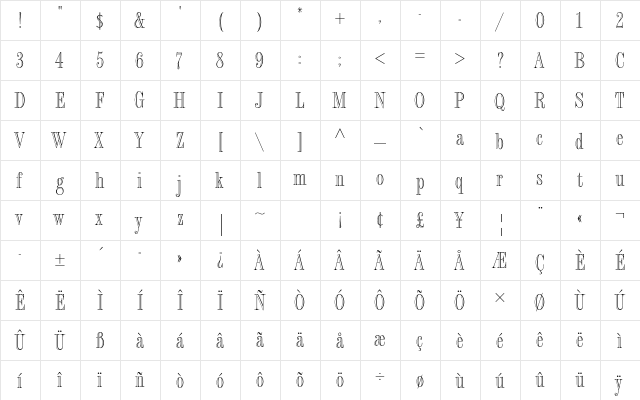
Fashion Engraved Std Regular
| Designer | Alan Meeks |
Design Context for Fashion Engraved Std Typeface
Fashion Engraved Std brings ornamental detail and strong personality to headlines and identities, where visual impact matters more than quiet functionality.
Font Pairing: Pair with a clean neutral sans-serif for body copy to let Fashion Engraved Std's character lead without overwhelming the composition.
Pro Tip: Use Fashion Engraved Std exclusively at display sizes — it was designed to be seen, not read at length. Let a neutral companion handle body copy.